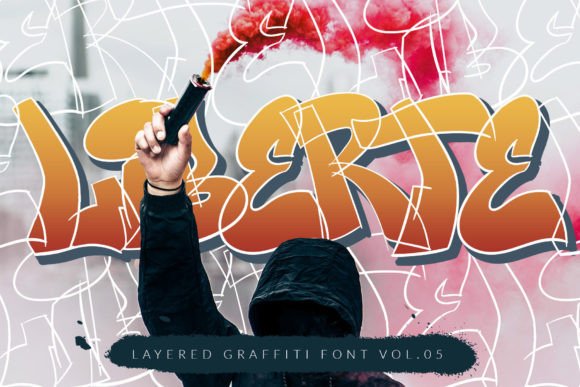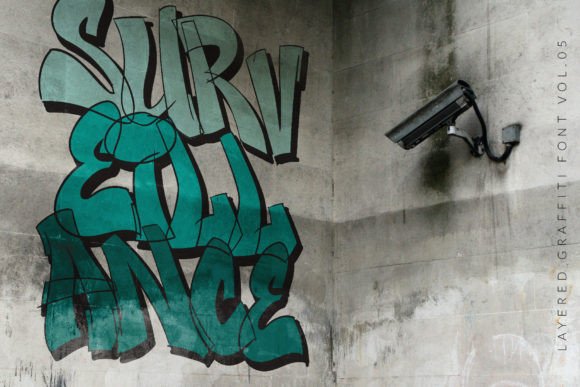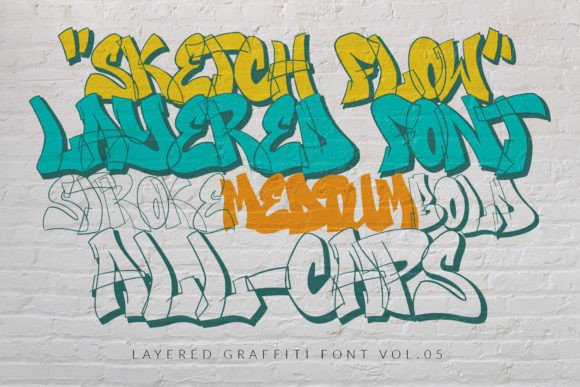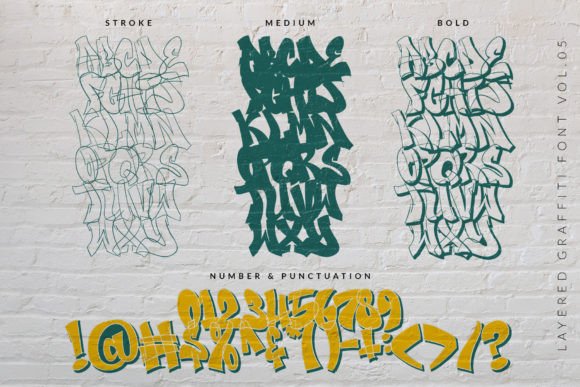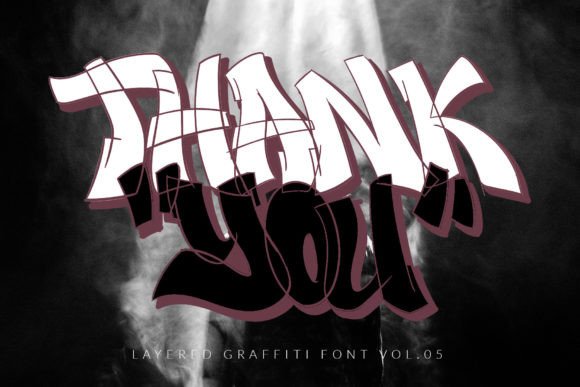
Introduction to Sketch Flow Font
SketchFlow is a layered graffiti font, inspired by street visual art and wants to apply in the form of fonts, this is the result of experiments combining graffiti sketch visuals.
There are 3 fonts in 1 family (Stroke, Medium, Bold) all in one capital glyph, and when combined the three fonts into one unit will make your urban design project easy and fast, or even make you an instant graffiti artist .